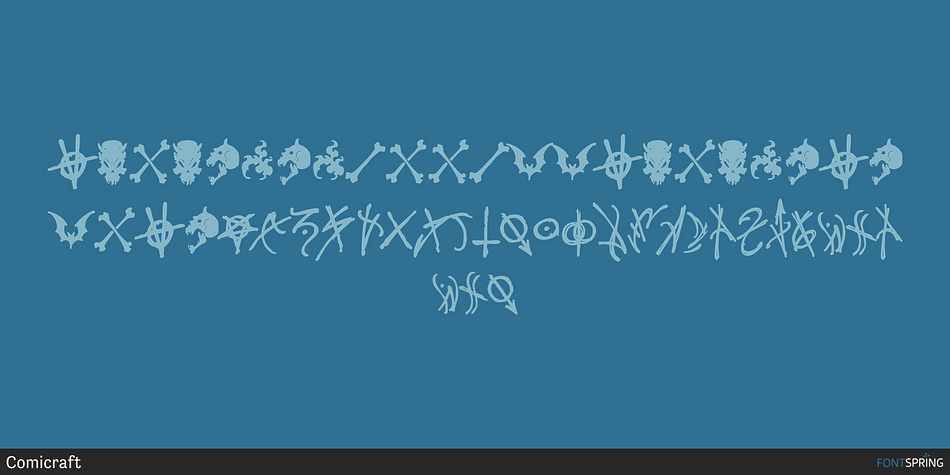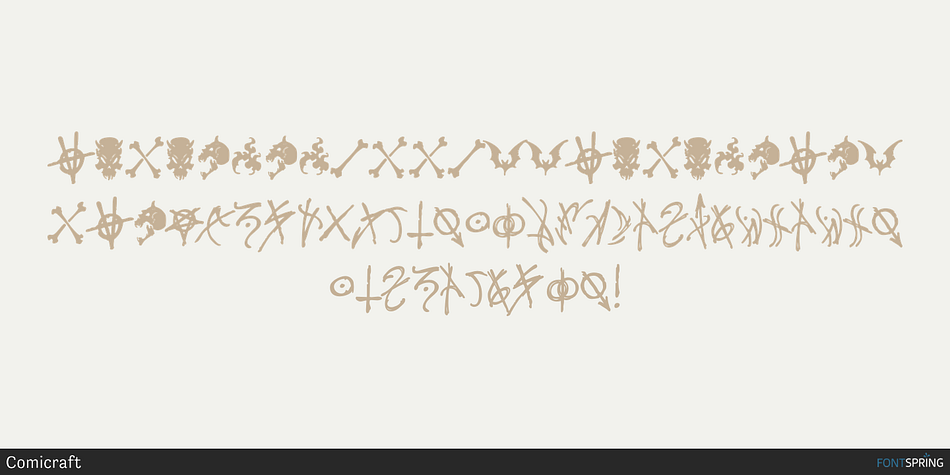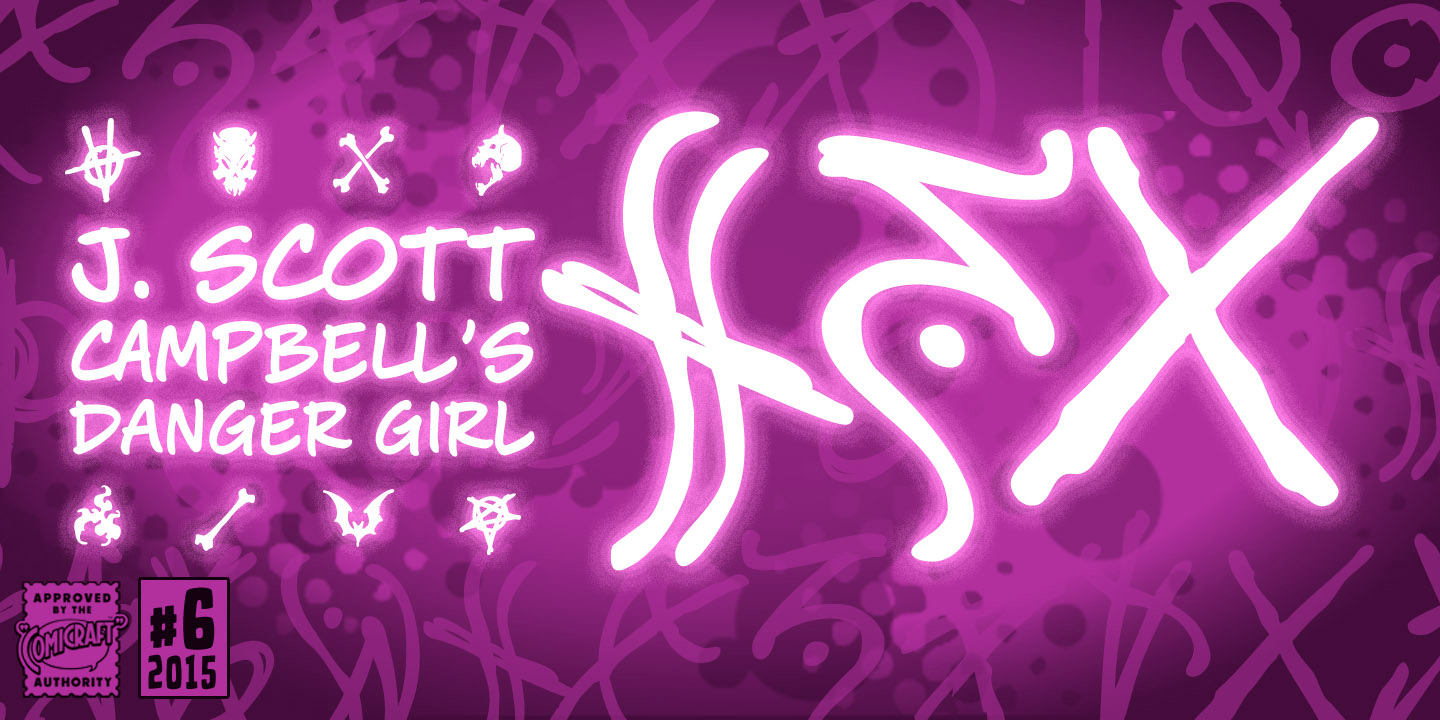
Danger Girl Hex Regular
Designed by J Scott Campbell and John Roshell, Danger Girl Hex is a dingbat font family published by Comicraft.
A dangerous charm.
A dangerous charm. A death hex.  A summoning. An Invocation. An enchantment. An incantation to raise the dead. A supernatural chant. Be careful what you spell out with this font, you might get what you wish for…
Twenty-seven (27) dingbats with numbers and basic punctuation